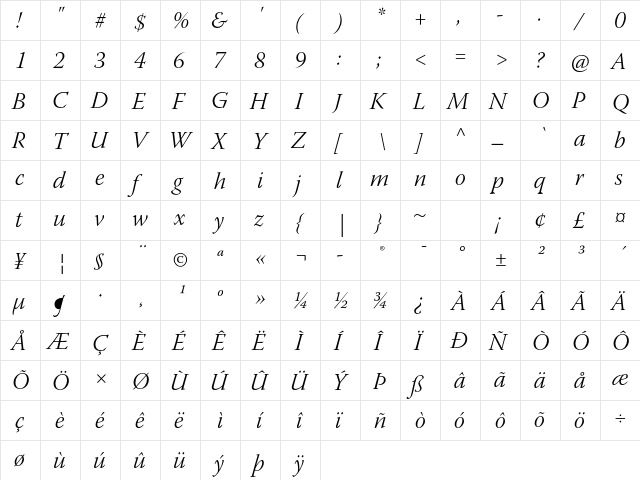
Warnock Pro Light Italic Subhead
| Designer | Robert Slimbach |
Design Context for Warnock Pro Typeface
Warnock Pro takes a measured approach to typography — its balanced proportions and neutral character make it a reliable workhorse for both digital and print work. The dynamic lean of this cut emphasises speed and emphasis in any layout. Its slender proportions lend an understated elegance to any composition.
Pro Tip: Use Warnock Pro for emphasis, pull quotes, and subheadings where its slanted energy can add rhythm to the layout.